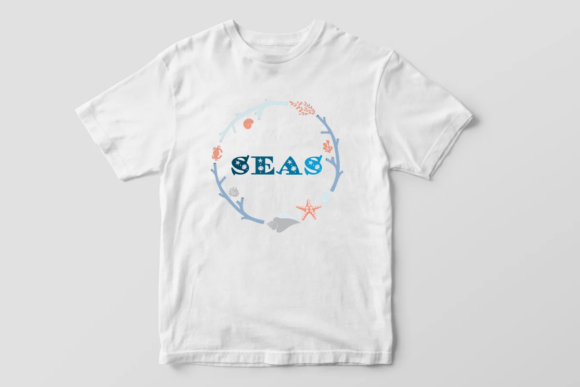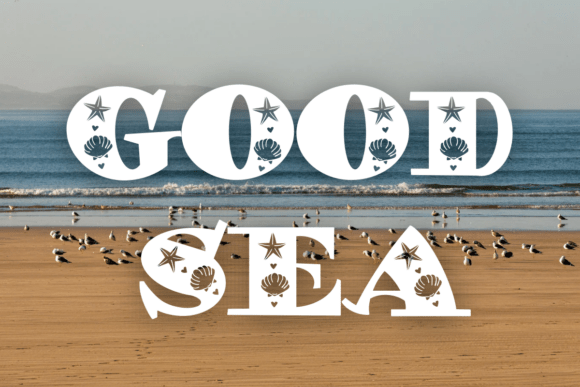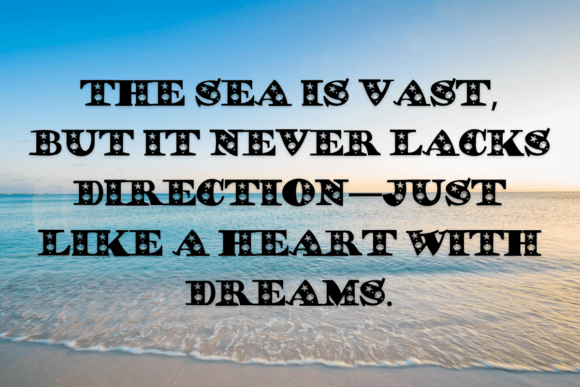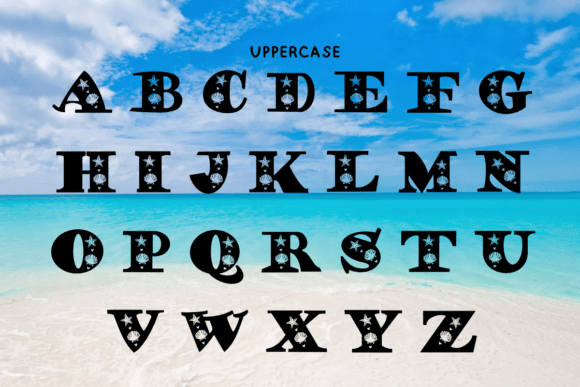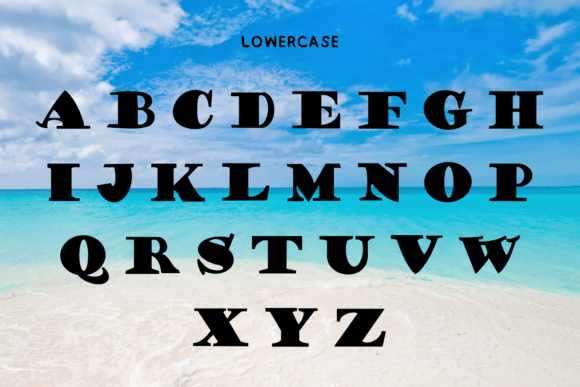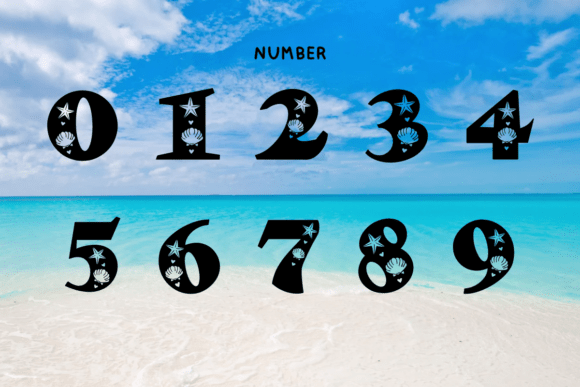
Introduction to Seas Font
Seas – a creative font that makes every letter stand out with charm.
Perfect for any idea, from design projects and greeting cards to unique gifts Enhance your banners, grab attention on social media, or add a personal touch to shirts, mugs, and stationery.
Seas Font offers exceptional quality and versatility, making it a valuable addition to your design toolkit. Whether you’re creating for personal projects or commercial use, Seas Font delivers professional results.